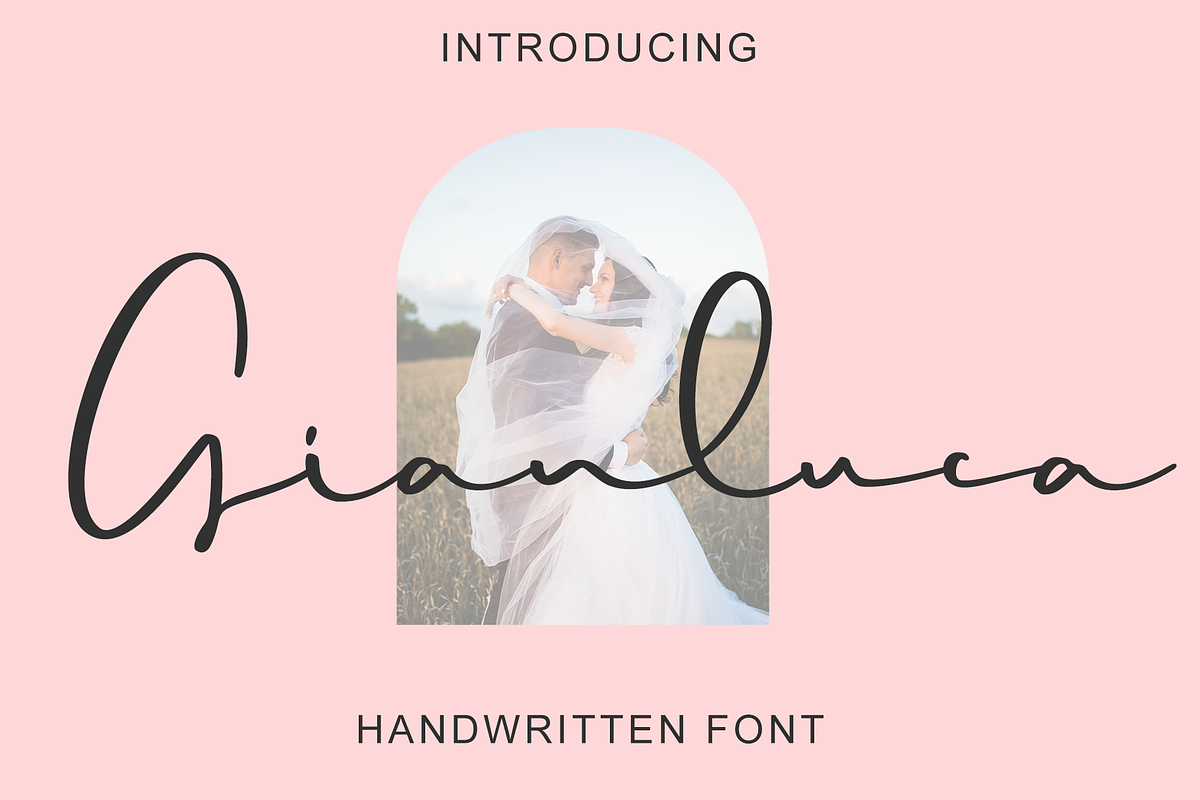
Gianluca | Handwritten Font Free Download is a stylish and modern script typeface that captures the charm of natural handwriting. With its smooth curves and casual flow, Gianluca is perfect for personal branding, social media posts, wedding invitations, logo design, and anything that needs a personal, heartfelt touch.
The font's handcrafted feel adds authenticity and warmth, while its clean execution ensures readability across various formats and sizes. Whether you're creating a romantic design or adding a signature-style detail to your work, Gianluca delivers elegance and individuality.